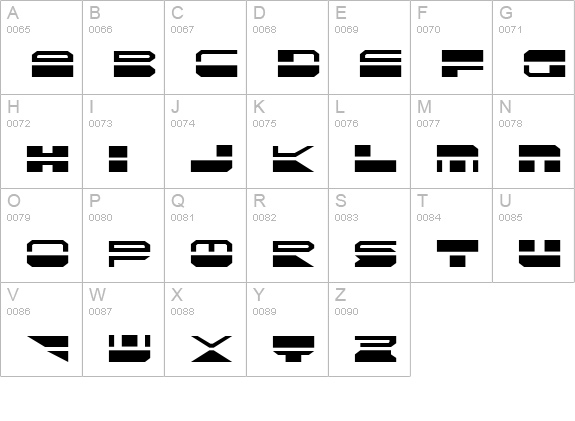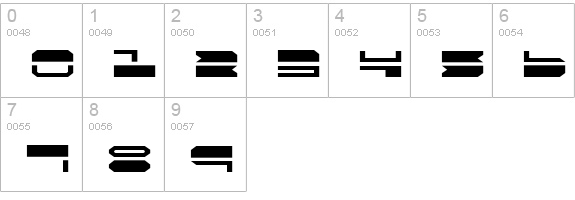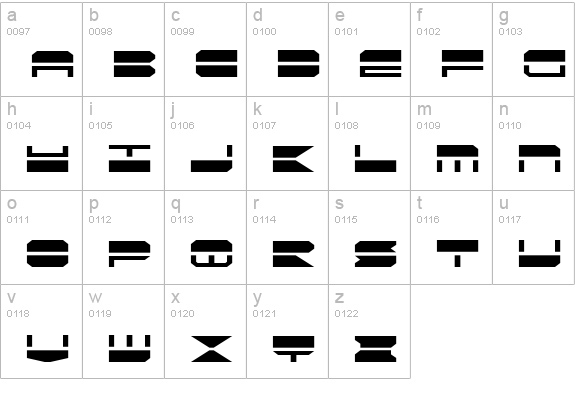
Quickmark is a dynamic and versatile font that effortlessly combines modernity with elegance. With its clean lines and sharp edges, this font is perfect for creating eye-catching designs that demand attention. Whether you're working on a logo, website, or any other creative project, Quickmark will add a touch of sophistication and professionalism. What sets Quickmark apart is not only its stunning aesthetics but also its accessibility. This font is available for free, making it an excellent choice for designers on a budget or those who simply appreciate high-quality fonts without the hefty price tag. You can easily download Quickmark at FontsMarket.com, where it is freely available to download and use in both personal and commercial projects. The versatility of Quickmark is truly remarkable. It can be used in a variety of design styles, from minimalist and contemporary to bold and expressive. Its wide range of weights and styles allow for endless creative possibilities, ensuring that it seamlessly integrates into any design concept. Quickmark's legibility is also worth mentioning. Its carefully crafted letterforms ensure clear and easy reading, even at smaller sizes. This makes it a great choice for both print and digital media, guaranteeing that your message is effectively communicated to your audience. Overall, Quickmark is a font that combines style, accessibility, and functionality. Its availability as a free download at FontsMarket.com makes it an invaluable resource for designers and creatives alike. Whether you're a professional designer or someone who simply appreciates beautiful typography, Quickmark is sure to enhance your creative projects and leave a lasting impression.